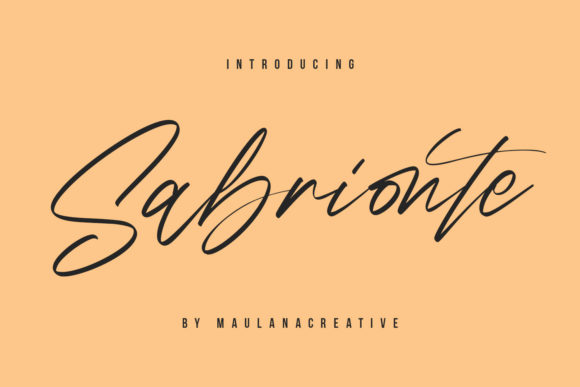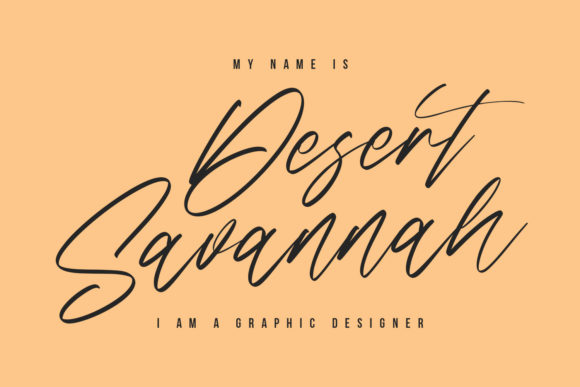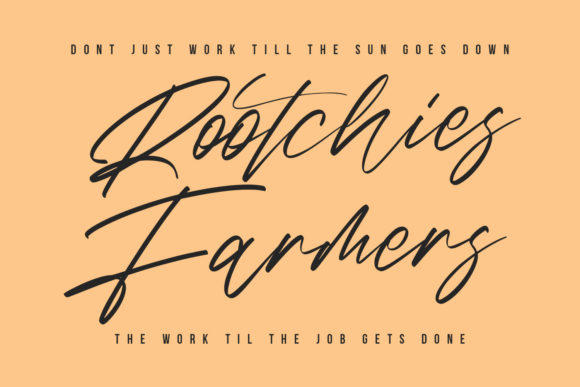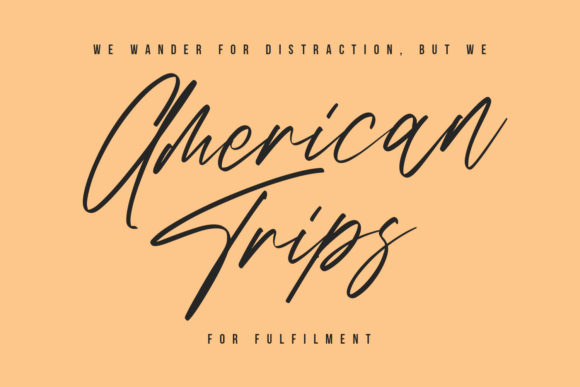
About Sabrionte Font
Sabrionte is a remarkable and elegant handwritten font. Beautiful and timeless, this font will elevate each of your creative ideas.